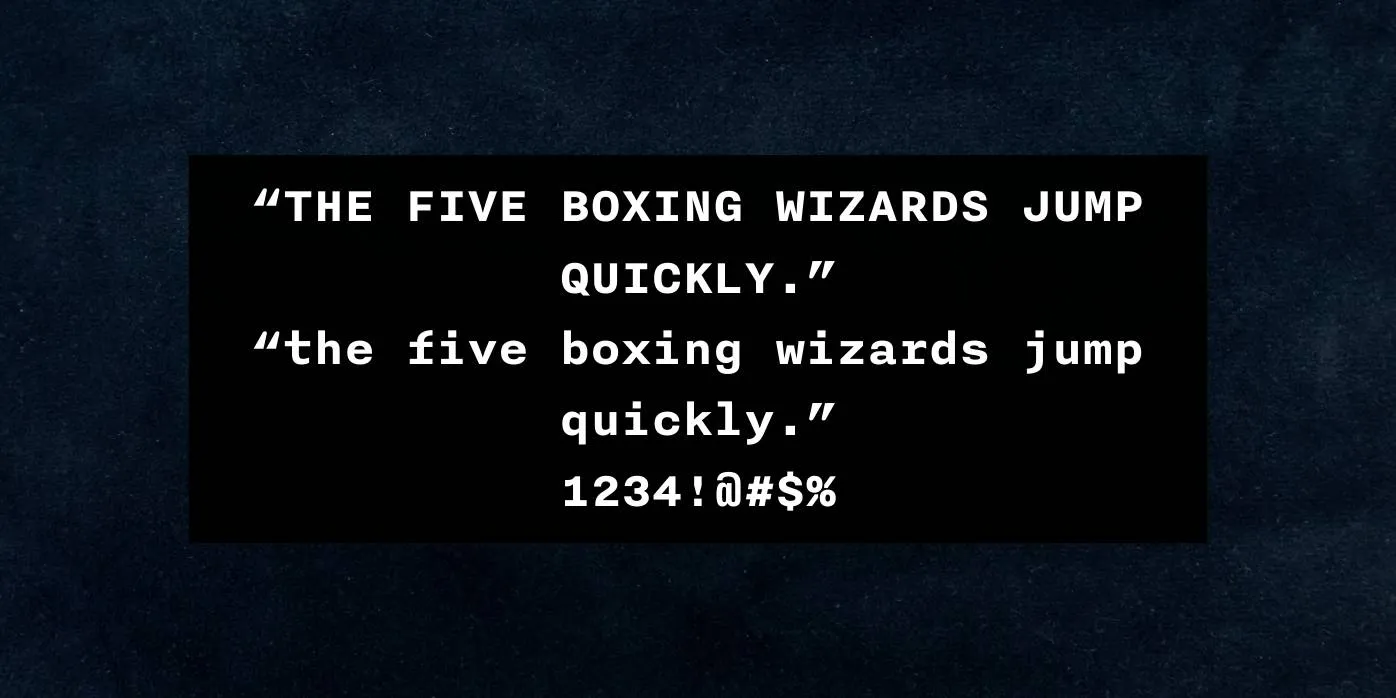
Nitti Font
Nitti Font was created by Francesco Canovaro and Alessandro Paselli in 2010. The font is named after the Italian Futurist Filippo Tommaso Marinetti. This Font is a serif typeface with a geometric structure. The font is characterized by its readability and legibility.
This Font is used in many publications and websites. Some of the most notable users of Nitti Font are The Guardian, Wired, and The New York Times. This Font has a wide variety of weights and styles. The font is available in regular, bold, italic, and black.